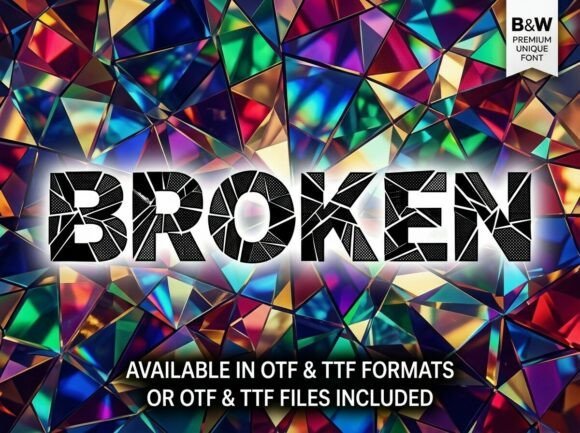
Unleash the Fury of Broken Type
Have you ever stared at a blank canvas, waiting for that spark of inspiration to ignite your creativity? It’s a moment we’ve all experienced, where the blank page seems to mock us, daring us to take the leap. But what if that spark came in the form of a shattered glass, refracting light and shattering conventions? Welcome to the world of Broken Font, a premium display font that redefines the boundaries of typography.
Broken Font is more than just a typeface – it’s a statement piece, a declaration of boldness and unapologetic individuality. Its intricate design features a mosaic of exploding glass pieces, jagged fractures, and geometric slivers, creating a dramatic, multi-dimensional depth that’s simply captivating. For designers, Broken Font offers a valuable asset – a font that can elevate any layout from ordinary to extraordinary.
- Unique Characteristics: Irregular letterforms, distressed texture, and subtle imperfections to evoke a sense of nostalgia and worn typography
- Kerning and Ligatures: Includes custom kerning pairs and ligatures for improved typographic quality
Broken Font Review
As a designer, I was intrigued by the unique concept of Broken Font. This font family is designed to resemble a broken, distressed look, which can add an interesting aesthetic to various designs.
- The font’s distressed look can be effective in conveying a sense of ruggedness or decay, making it suitable for certain design projects, such as vintage-inspired or horror-themed designs.
- The font family includes multiple weights and styles, allowing designers to experiment with different looks and feels.
- The font’s irregularities can add a touch of human error or imperfection, which can be appealing in certain contexts.
- The font’s readability can be compromised due to its irregular shape and lack of clear letterforms, making it challenging to use in body text or for long passages of text.
- The font’s distressed look can be overwhelming or difficult to read in smaller sizes or when used extensively throughout a design.
While Broken Font has some unique qualities that can be effective in certain design contexts, its limitations make it less versatile than other font families. It’s best suited for projects where a distressed or vintage look is a key element, but should be used sparingly and with caution to avoid overwhelming the viewer.